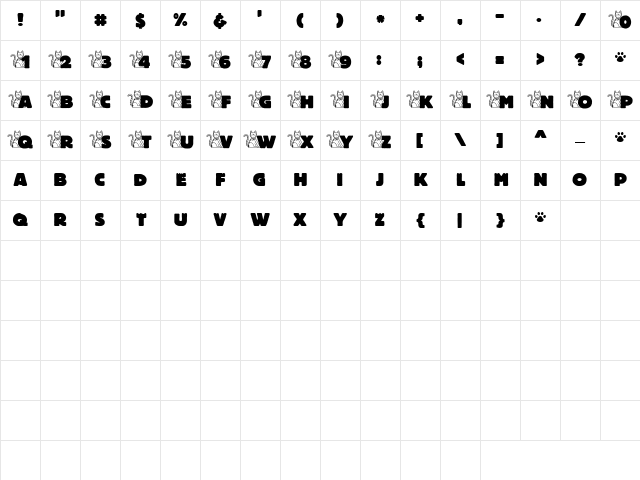
LD Cats Regular
Design Context for LD Cats
LD Cats is a composed and adaptable typeface that performs quietly and consistently across a wide range of design contexts.